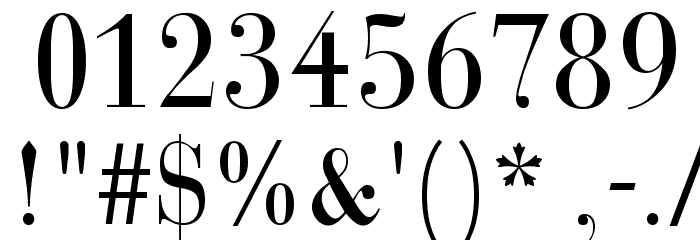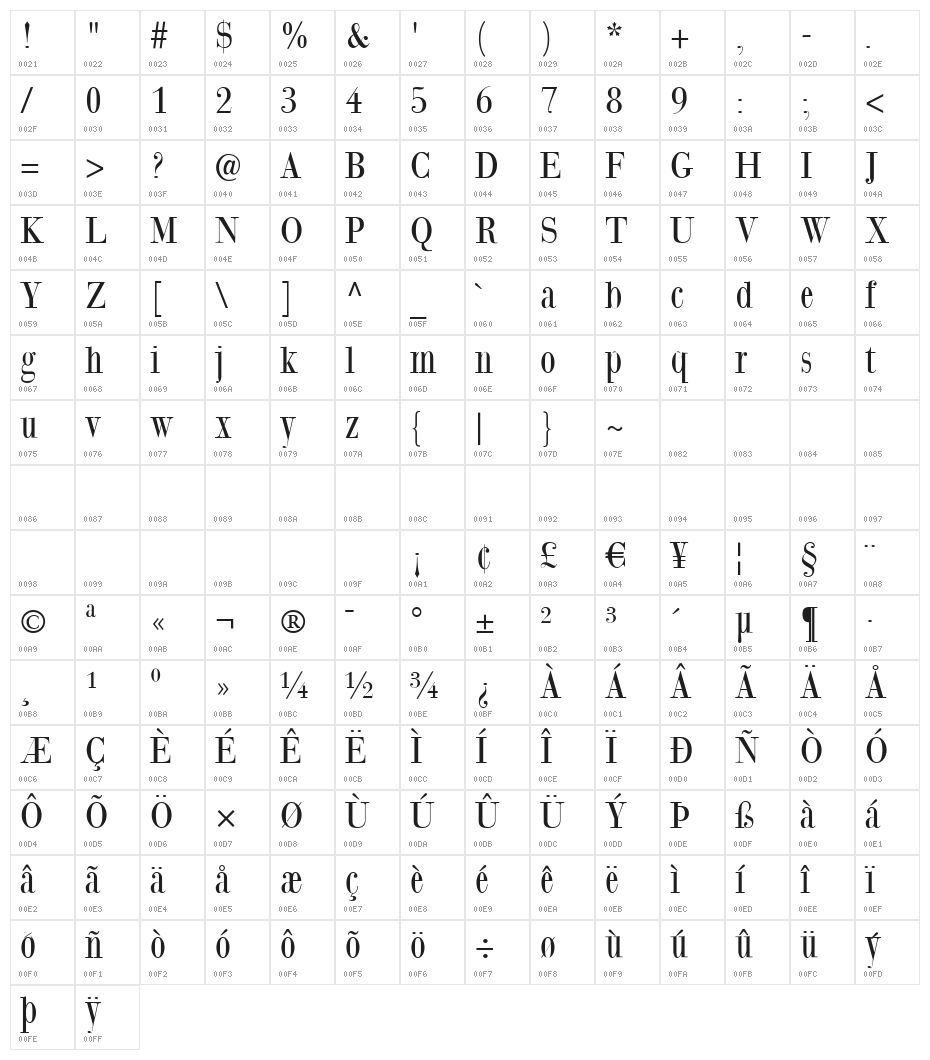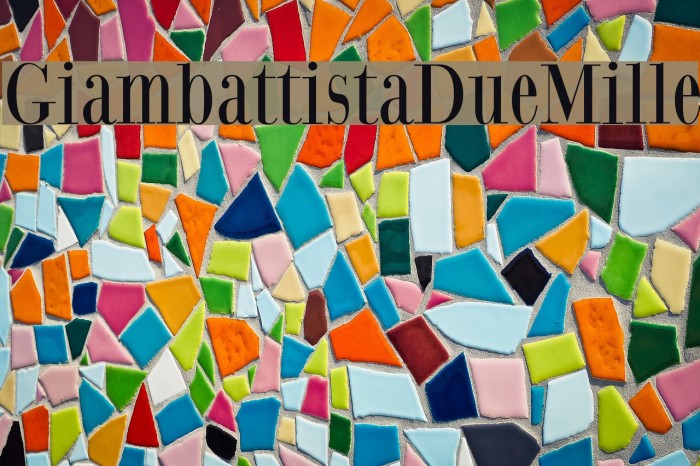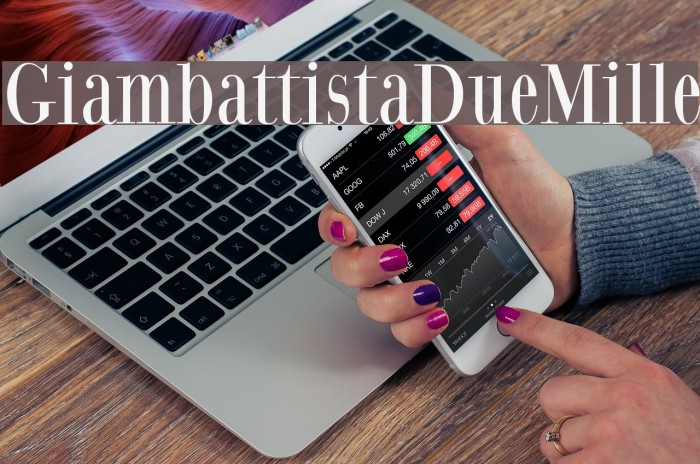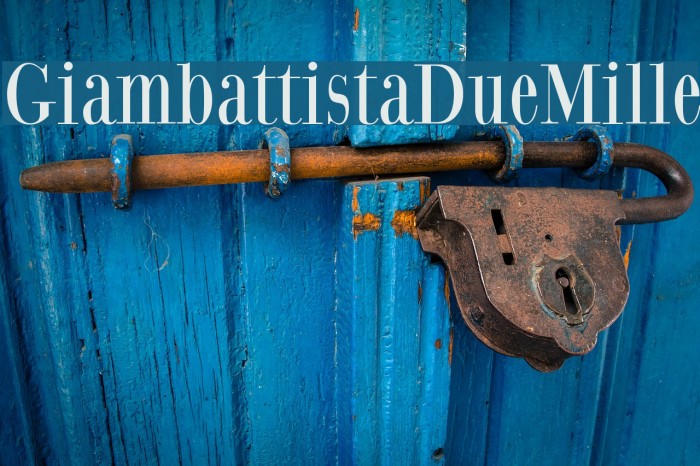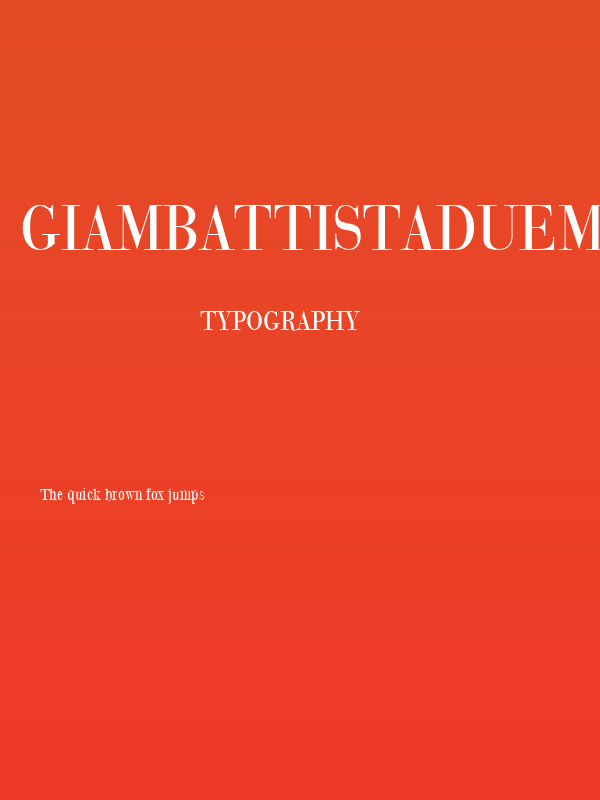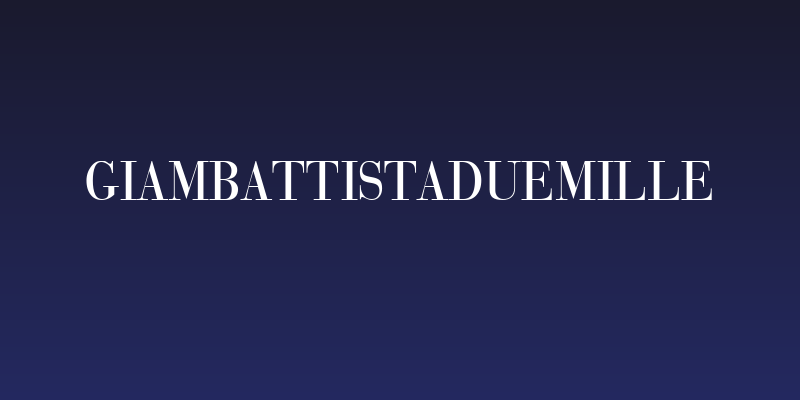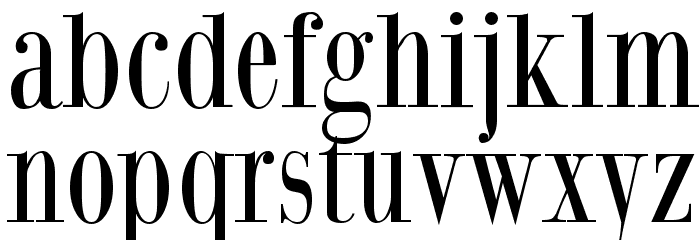
GiambattistaDueMille Font
GiambattistaDueMille Description
This font features a classic serif style with high contrast between thick and thin strokes, giving it an elegant and refined appearance. The uppercase letters are tall and stately, while the lowercase letters maintain a consistent rhythm with slightly rounded forms. The numerals are proportional, aligning well with the overall aesthetic. Special characters are designed with the same attention to detail, ensuring a cohesive look across all glyphs. The serifs are sharp and pronounced, adding to the font's sophisticated and timeless feel. This typeface is suitable for projects that require a touch of elegance and tradition.
| Proposed Projects | Ideal for editorial design, book covers, formal invitations, and branding that requires a traditional and sophisticated look. |